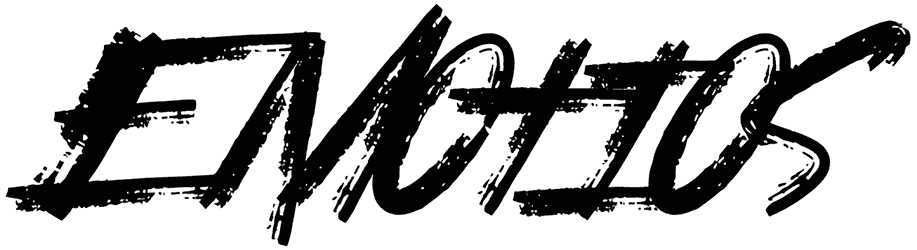
Emotios Font
If you think picking an eroded font can mess with the impact of your words and might not sound as strong as intended, Emotios can change your mind. You’re going to find some sort of roughness in its condensed brush letters that make it even louder in posters and hoodies.
Just note that this urban font is entirely made of capitals, with the first set being redrawn to create a contrast in the brush strokes compared to the other set.